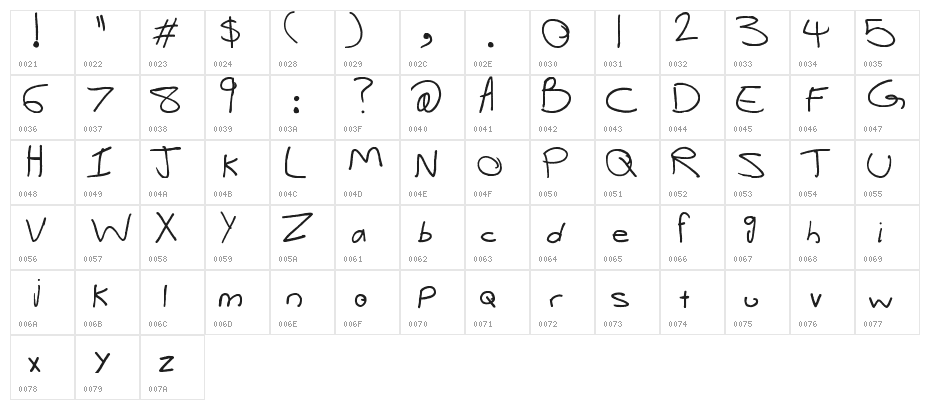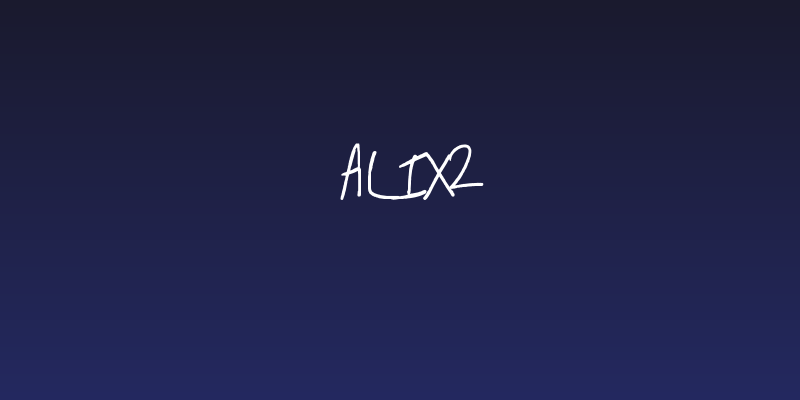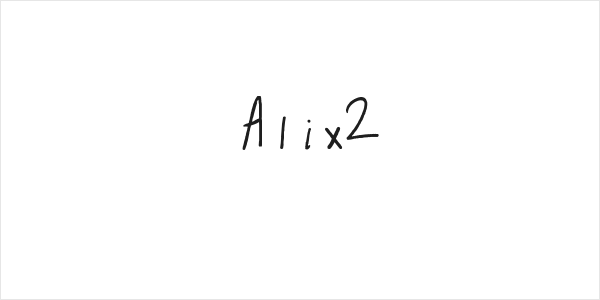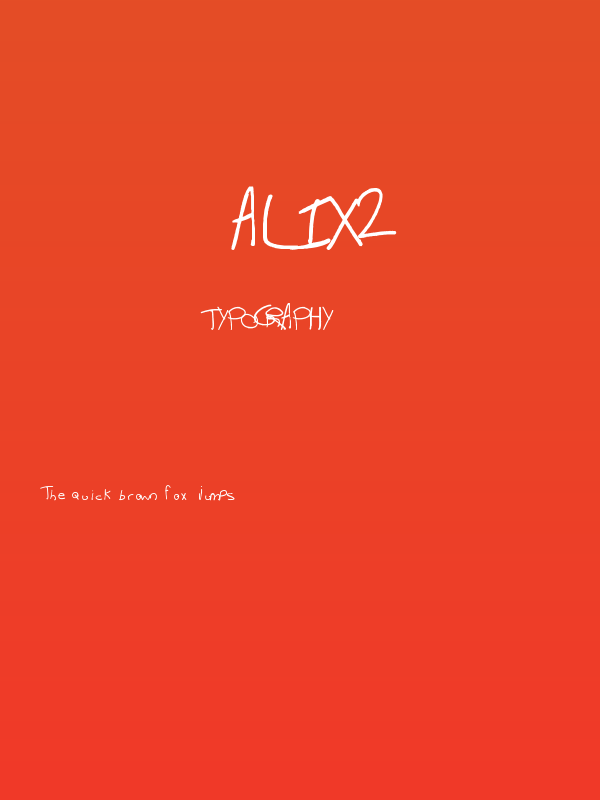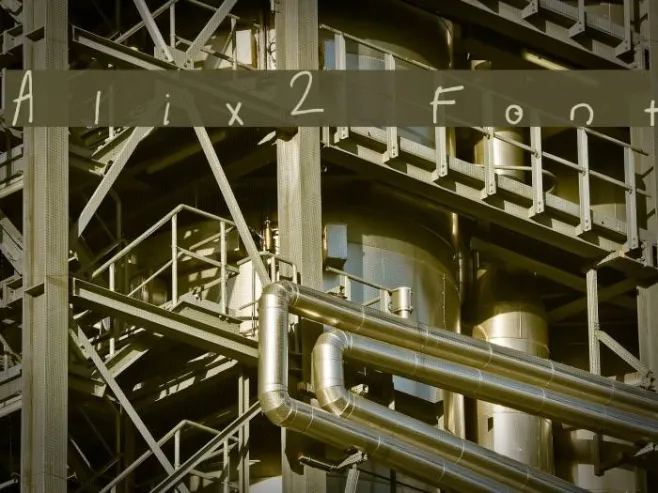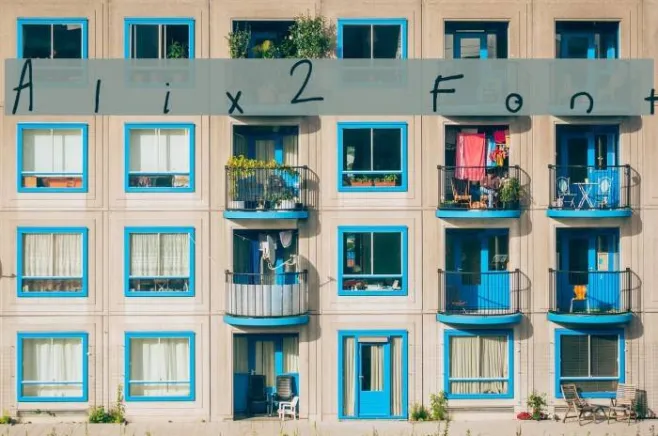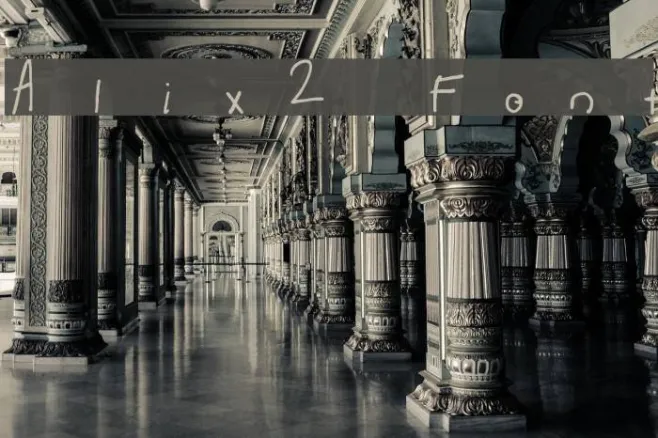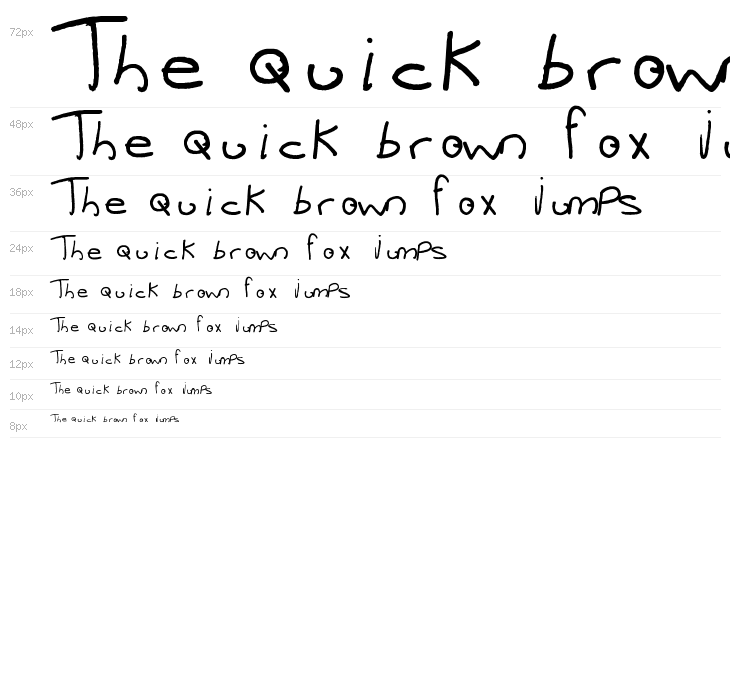
Alix2 Font
Alix2 Description
This font exhibits a playful, handwritten style with a casual and informal appearance. The characters are slightly irregular, mimicking the natural flow of handwriting. The uppercase and lowercase letters maintain a consistent style, with rounded edges and a slight tilt, adding to the whimsical feel. The numbers and special characters follow the same design ethos, ensuring a cohesive look across all elements. The strokes are relatively thin, contributing to a light and airy aesthetic. This font is perfect for projects that require a personal touch or a relaxed vibe.
| Proposed Projects | Ideal for greeting cards, personal notes, children's books, and creative projects requiring a personal touch. |